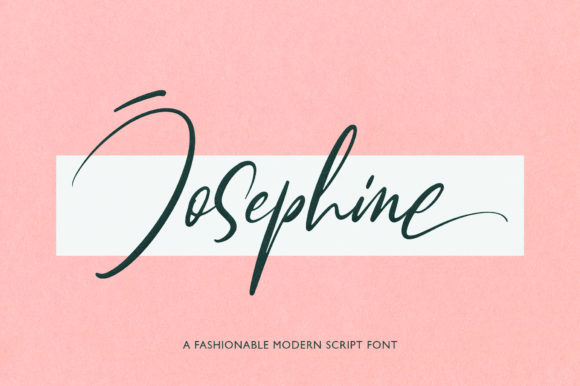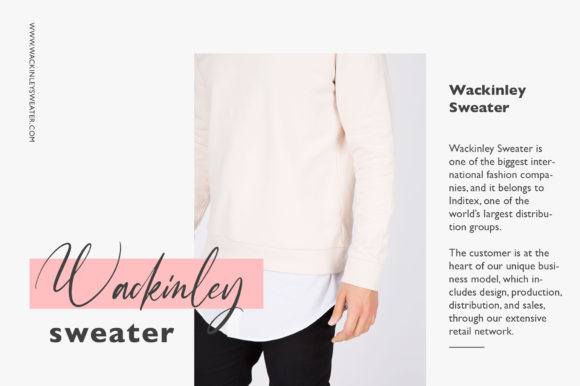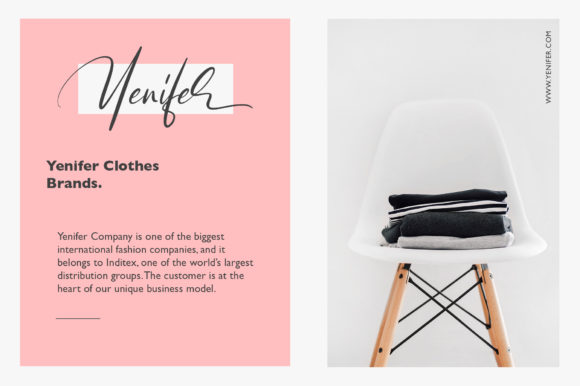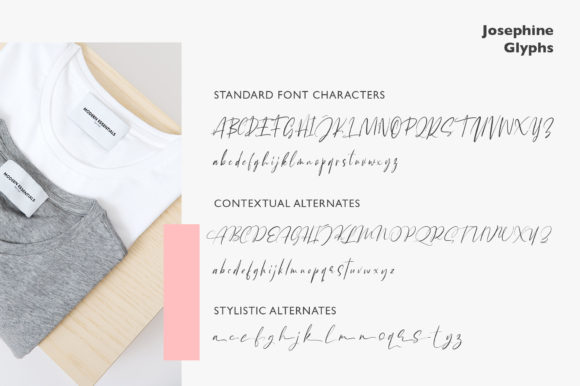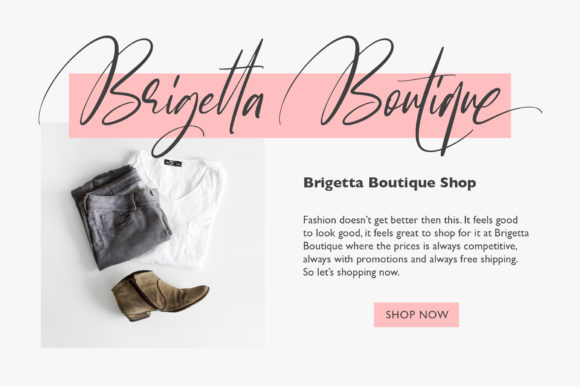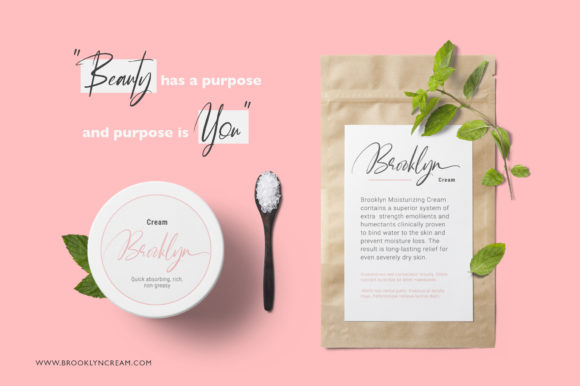
Josephine Script Font
About Josephine Script Font
The Josephine is a fashionable modern script. Every letter has been carefully crafted to give it a fresh and stylish look.
It’s perfect for logotypes, branding, magazines, website or blog headlines, packaging, quotes, invitation cards, greeting cards, business cards, and much more!